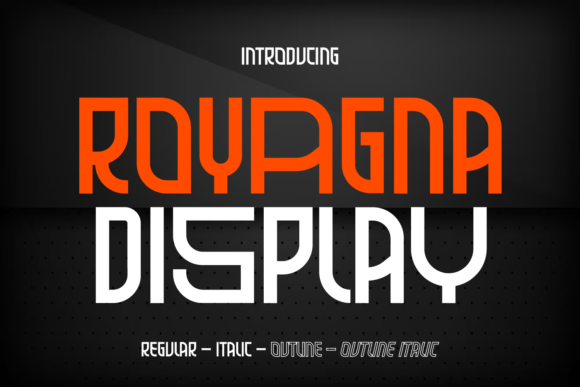
Discover Royagna: The Ultimate Font for a Picture-Perfect Digital Canvas
Step into the enchanting world of Royagna, a sans serif font family that's specifically designed to transform your creative projects into breathtaking works of art. With its clean lines and modern aesthetic, Royagna possesses a unique charm that instantly captures attention. Inspired by the textures and imperfections of vintage wooden letters, Royagna exudes a timeless elegance that adds a touch of nostalgia and sophistication to any design.
Royagna's diverse collection of styles, ranging from light and airy to bold and commanding, provides endless possibilities for self-expression. Its versatility shines through in a myriad of applications, from crafting visually stunning logos and branding that leave a lasting impression to creating enchanting invitations, stationery, and wedding designs that are sure to delight your recipients. Let Royagna elevate your social media presence, turning ordinary posts into visually striking content that captivates your audience.
Engaging and Eye-Catching: Royagna's distinct character shines through in every digital creation, making your designs stand out effortlessly. Its meticulously crafted letterforms create a harmony of shapes that draw the eye and leave a lasting impression. Royagna's visual appeal extends beyond aesthetics, as it offers exceptional clarity and readability, ensuring that your message is communicated with utmost effectiveness.
Royagna: Your Gateway to a World of Creative Possibilities
Royagna is more than just a font; it's a creative companion that empowers you to transform your digital creations into expressions of your unique style. With its versatility and ease of use, Royagna becomes an extension of your creativity, allowing you to effortlessly turn your visions into reality.